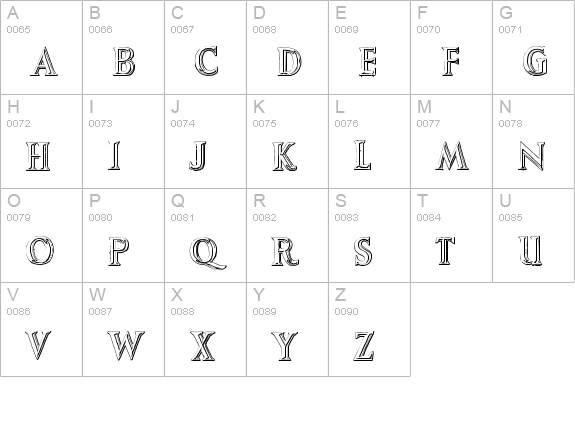
Augustus Beveled Font Details
Introducing Augustus Beveled, a stunning font that effortlessly combines classic elegance with a contemporary edge. This versatile typeface is perfect for adding a touch of sophistication to any creative project, from logos and branding to invitations and posters. Augustus Beveled features a unique beveled effect that adds depth and dimension to each letter, making it truly stand out from the crowd. Its clean lines and sharp angles create a visually striking appearance that is both modern and timeless. What makes Augustus Beveled even more enticing is that it is available for free! Yes, you read that right. This incredible font can be easily downloaded and used for any personal or commercial project without any cost. Simply head over to FontsMarket.com and experience the joy of freely exploring this exquisite typeface. Whether you're a seasoned designer looking to elevate your work or a novice just starting out on your creative journey, Augustus Beveled is sure to be a valuable addition to your font library. Its versatility and eye-catching aesthetics make it suitable for a wide range of applications, whether it's for digital or print design. So why wait? Download Augustus Beveled today and unlock the endless possibilities it offers. With its captivating style and the added bonus of being free, this font is bound to become a go-to choice for designers and creatives alike. Don't miss out on the opportunity to make a bold statement with Augustus Beveled - get it now, exclusively at FontsMarket.com!